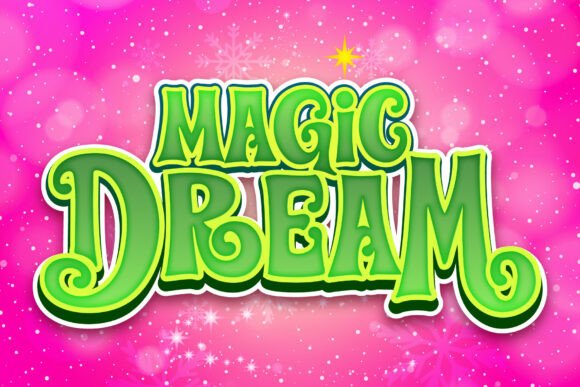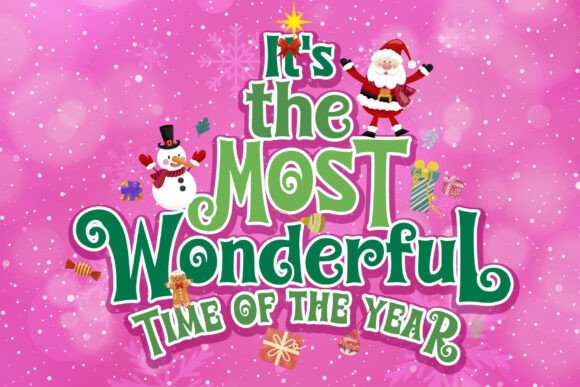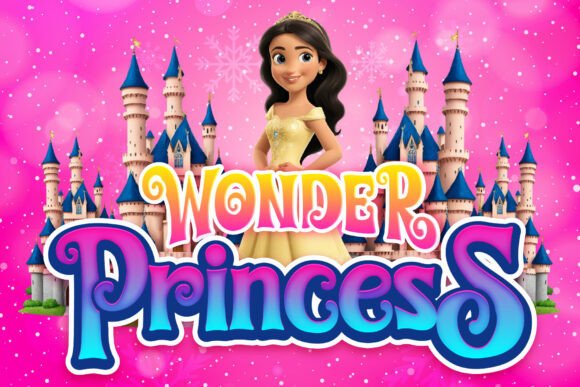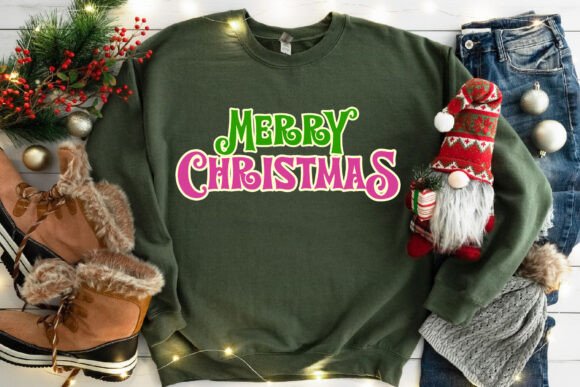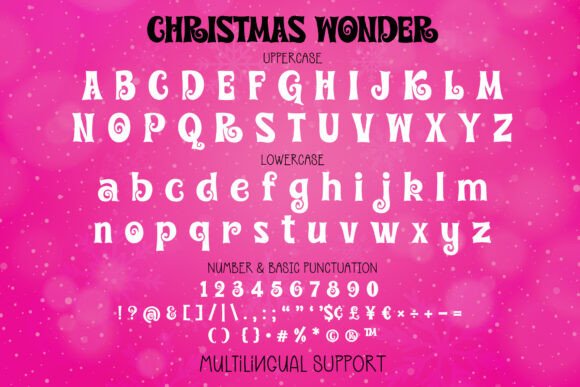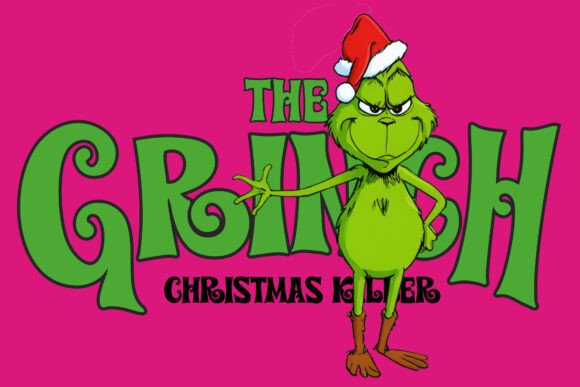
Christmas Wonder Font: Add a Touch of Holiday Magic to Your Designs
As the holiday season approaches, designers and crafters are on the lookout for the perfect typography to bring their creations to life. If you’re searching for a font that embodies the spirit of Christmas, look no further than Christmas Wonder. This vibrant and festive display font is designed to add a touch of exuberance and merriment to your designs, making it the perfect choice for holiday projects.
The Perfect Holiday Font
Christmas Wonder is a carefully crafted font that captures the essence of the holiday season. Its playful and energetic vibe makes it ideal for a wide range of creative projects, from holiday cards and invitations to festive posters and social media graphics. With Christmas Wonder, you can add a dash of seasonal charm to your designs and make them truly unforgettable.
Key Features of Christmas Wonder
- Vibrant and Festive: Christmas Wonder is a display font that’s designed to make a statement. Its bold and colorful design makes it perfect for adding a pop of personality to your holiday creations.
- Playful and Energetic: This font has a fun and lively vibe that’s sure to capture the spirit of the holiday season. Its playful curves and lines make it perfect for designs that require a touch of whimsy and charm.
- Highly Versatile: Christmas Wonder is a versatile font that can be used for a wide range of creative projects. Whether you’re designing holiday cards, posters, or social media graphics, this font is sure to make your designs shine.
Why Choose Christmas Wonder?
With so many fonts to choose from, why should you choose Christmas Wonder for your holiday designs? Here are just a few reasons why this font stands out from the rest:
- Unique and Eye-Catching: Christmas Wonder is a one-of-a-kind font that’s sure to grab attention. Its bold and colorful design makes it perfect for designs that require a touch of drama and flair.
- Perfect for Holiday Designs: This font is specifically designed for holiday creations, making it the perfect choice for designers and crafters who want to add a touch of seasonal charm to their designs.
- High-Quality Design: Christmas Wonder is a high-quality font that’s designed to deliver exceptional results. Its clear and crisp lines make it perfect for designs that require a touch of sophistication and elegance.
Tips for Using Christmas Wonder
Now that you’ve chosen Christmas Wonder for your holiday designs, here are a few tips to help you get the most out of this amazing font:
- Use it as a Headline Font: Christmas Wonder is a bold and attention-grabbing font that’s perfect for headlines and titles. Use it to add a touch of drama and flair to your designs.
- Pair it with Other Fonts: For a more dynamic look, try pairing Christmas Wonder with other fonts. A simple sans-serif font can provide a nice contrast to the bold and playful design of Christmas Wonder.
- Experiment with Colors: Christmas Wonder looks amazing in bright and bold colors. Experiment with different color schemes to find the perfect combination for your holiday designs.
Christmas Wonder is a vibrant and festive display font that’s perfect for adding a touch of holiday magic to your designs. With its playful and energetic vibe, highly versatile design, and ease of use, this font is sure to become a favorite among designers and crafters. So why wait? Give your projects the gift of seasonal charm with Christmas Wonder, and make this holiday season one to remember!